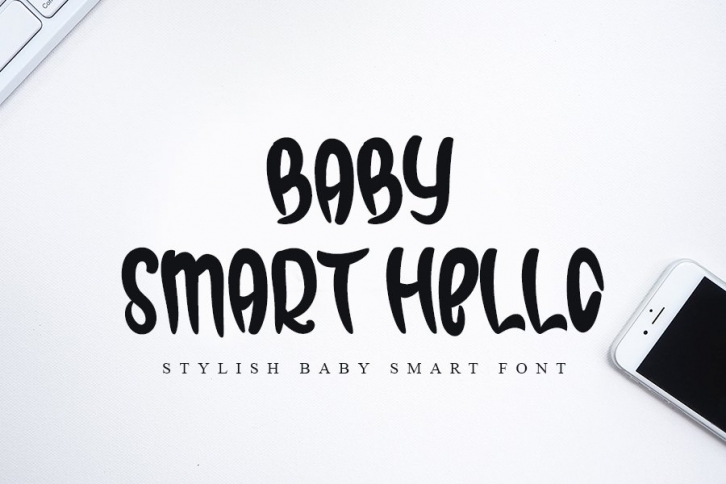
Baby Smart Hello is a trendy and unique font with an authentic style. It was designed by KINSTUDIO and it's a great choice for creative people who need such a font. It was released on October 8, 2020 and the file size is 18.12 MB. Baby Smart Hello will add an organic vibe to any design idea!